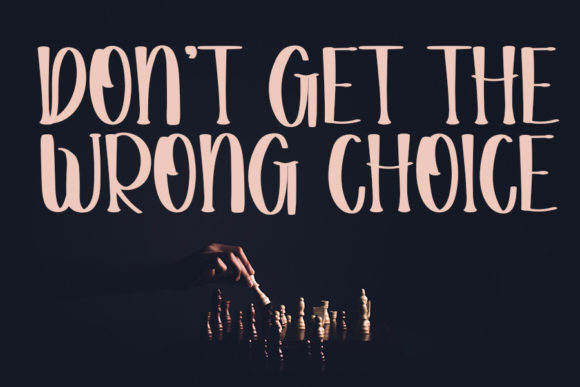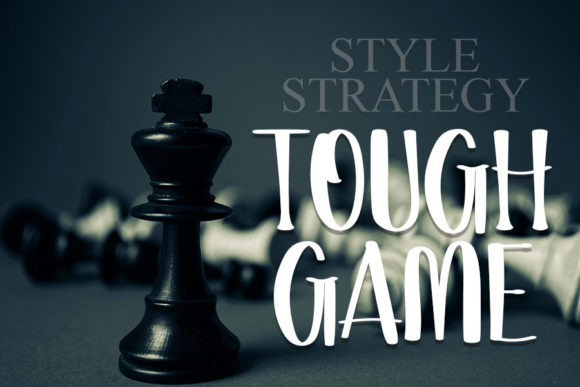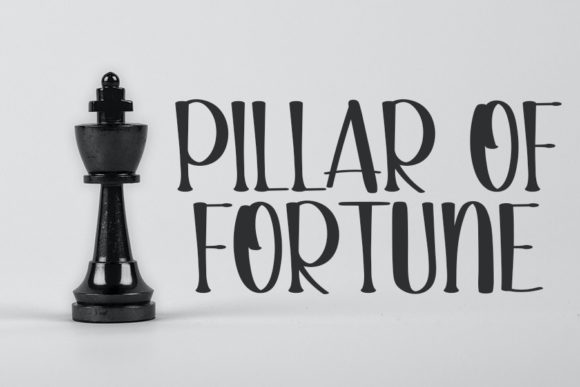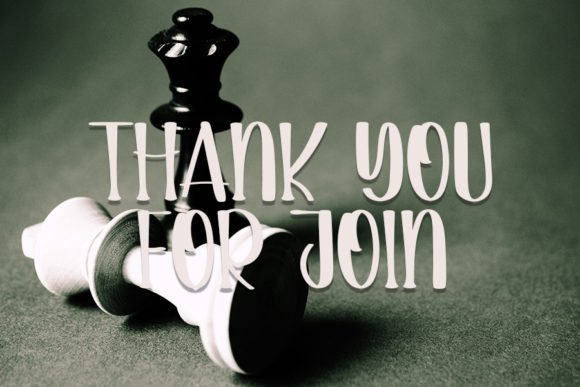
About King Quin Font
King Quin is a quirky and laid-back handwritten font. Whatever the topic, this font will be a wonderful asset to your font library, as it has the potential to enhance any creation.